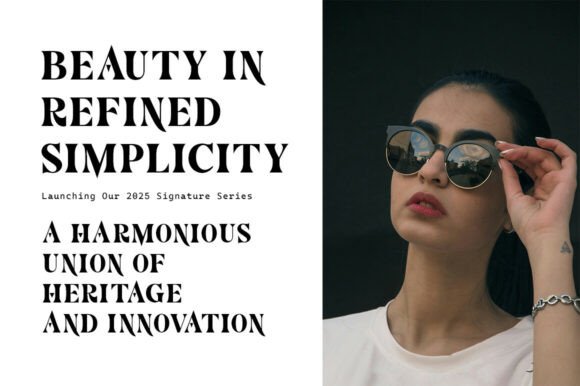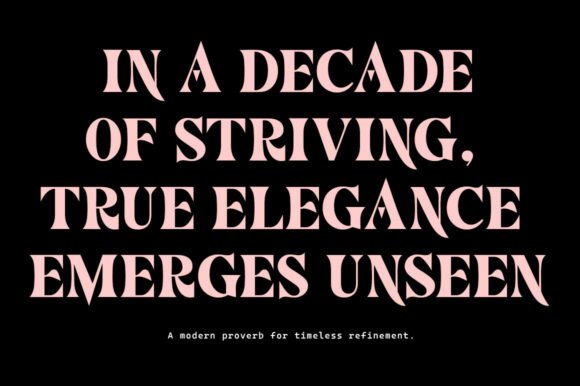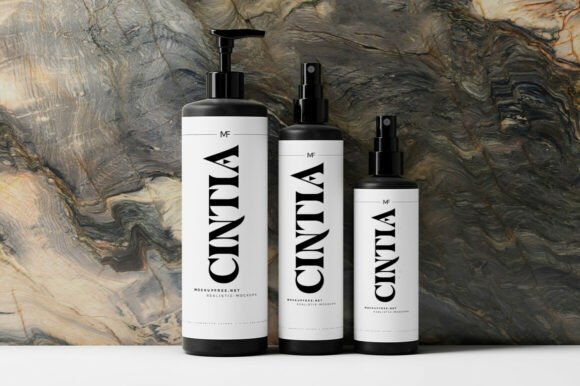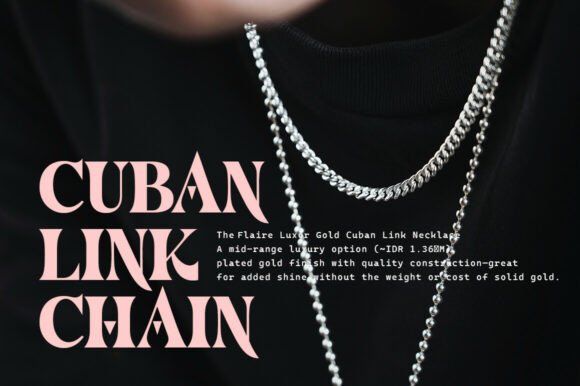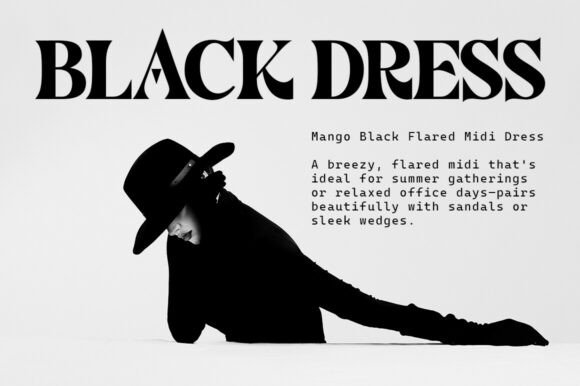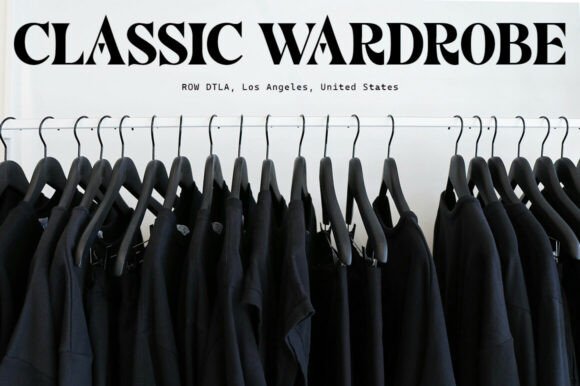
Introduction to Mardon Font
Imagine you’re a designer, tasked with creating the perfect invitation for a high-end wedding. You’ve spent hours pouring over design resources, searching for the perfect font to convey elegance and sophistication. Suddenly, you stumble upon the Mardon Font – a game-changing serif font that perfectly captures the essence of refinement and timelessness. Its clean lines, balanced proportions, and delicate serifs make it the ideal choice for any creative project.
But what sets the Mardon Font apart from other design resources? Its versatility is unparalleled, making it suitable for a wide range of applications, from vintage-inspired branding to captivating book covers. With its high-quality design, you can be sure that your creative project will stand out from the crowd. And the best part? The Mardon Font is available for free download, allowing you to bring your vision to life without breaking the bank.
Key Features of Mardon Font
- High-quality design resource for creative projects, ideal for logos, branding, and graphics.
- Includes multiple font styles and weights, providing versatility for a range of creative applications.
Honest Review: Mardon Font
I recently stumbled upon the Mardon Font while searching for a unique design resource for a creative project. At first glance, I was impressed by its elegant and modern design.
- High-quality design: The Mardon Font is well-crafted, with clean lines and a sophisticated look that makes it perfect for a variety of creative projects.
- ⚠️ Limited font sizes: The font only comes in a few sizes, which may limit its use in certain design applications.
- ⚠️ Limited customization options: While the font is elegant, it’s not highly customizable, which may be a drawback for designers who like to experiment with different styles.
Overall, I’m impressed with the Mardon Font. Its high-quality design and transparent background make it a valuable addition to any design resource library. While it has some limitations, it’s a great choice for designers working on creative projects who want a sophisticated and modern look.
Mardon Font is ideal for:
- Print and digital marketing materials